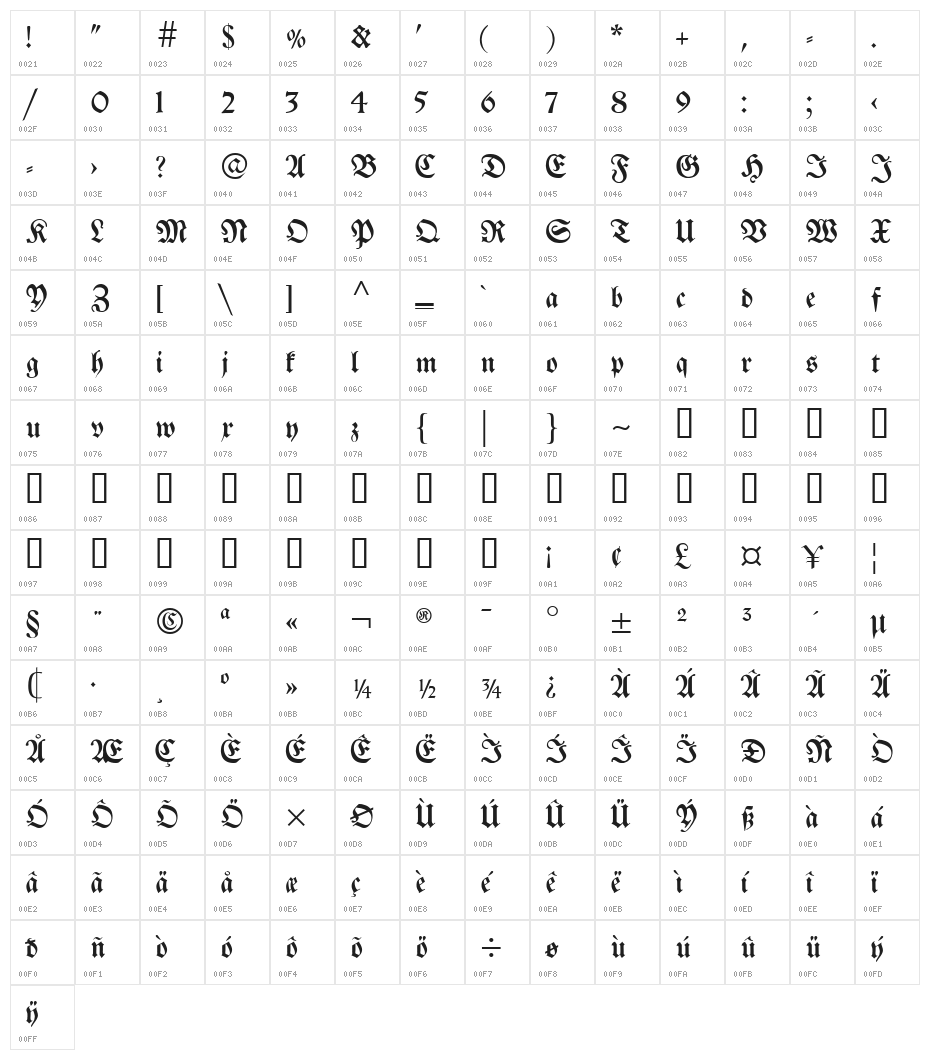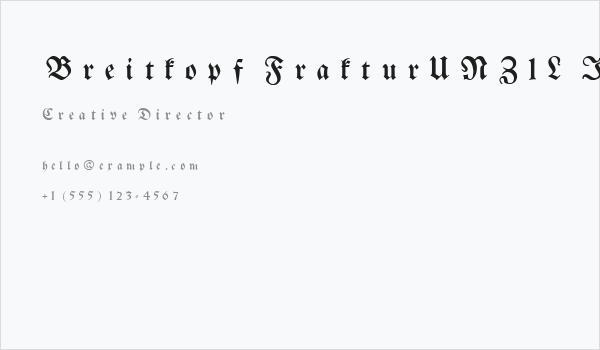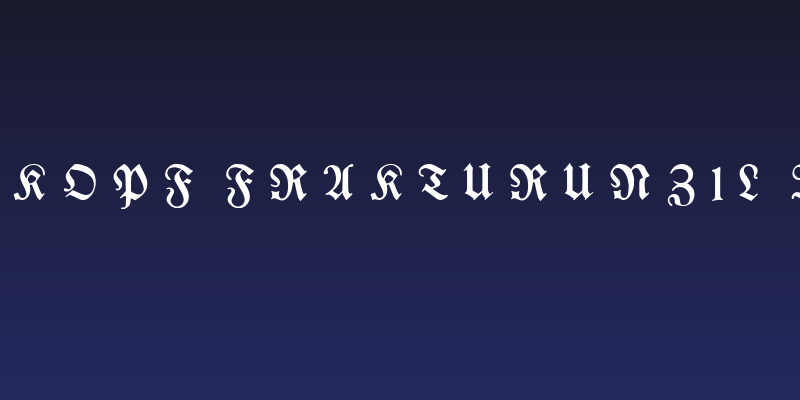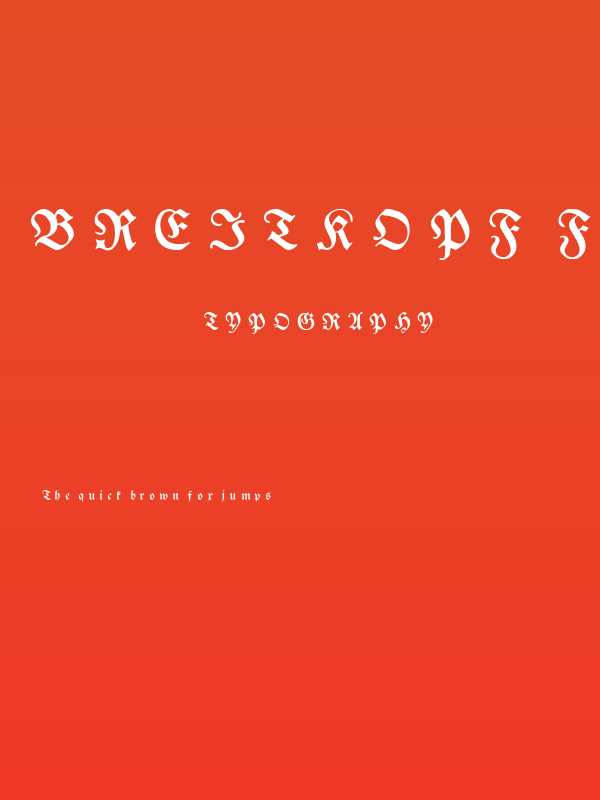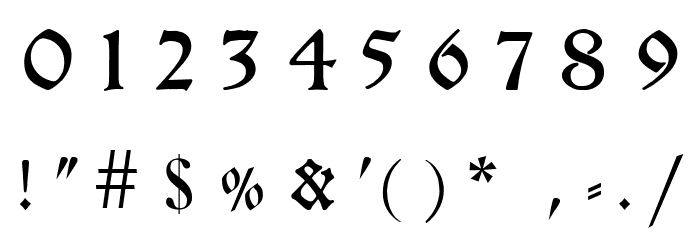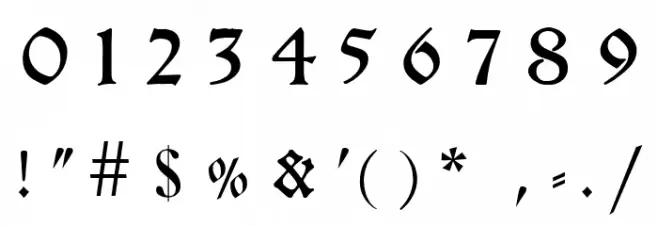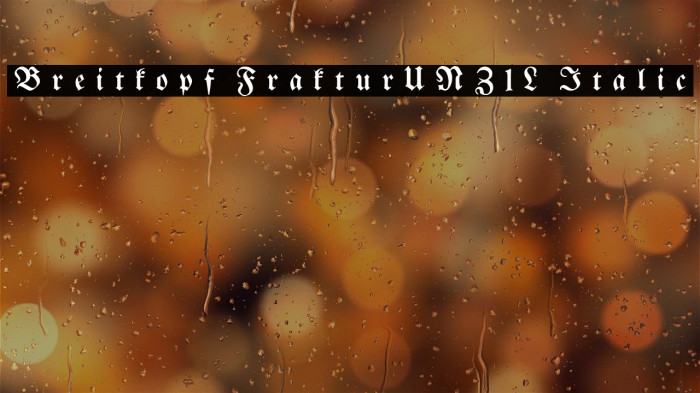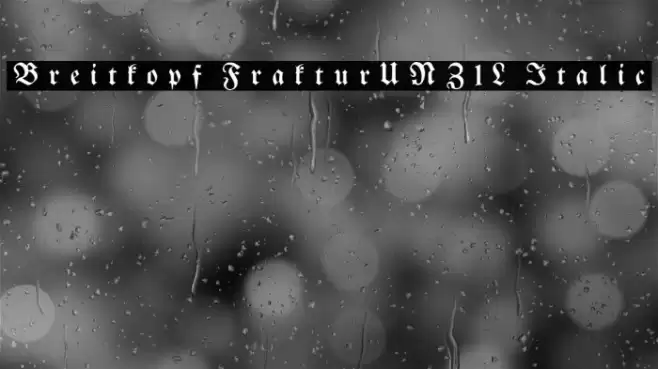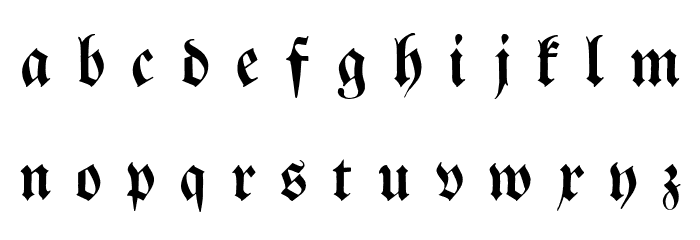
Breitkopf FrakturUNZ1L Italic Font
Breitkopf FrakturUNZ1L Italic Description
This font is a classic example of Blackletter style, characterized by its ornate and intricate design. The letters feature sharp, angular lines with dramatic flourishes and a distinct medieval aesthetic. The uppercase letters are bold and commanding, while the lowercase letters maintain the same decorative style with slightly less emphasis. The numerals are consistent with the overall theme, offering a unique and historical feel. Special characters are equally ornate, fitting seamlessly into the font's aesthetic. This typeface exudes a sense of tradition and history, making it ideal for projects that require a touch of elegance and antiquity.